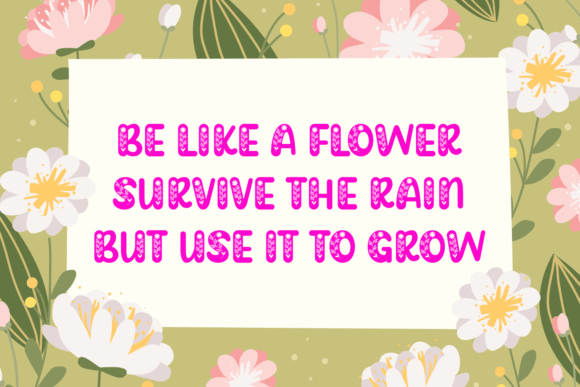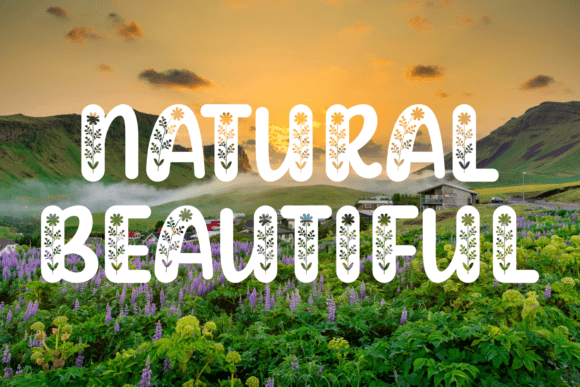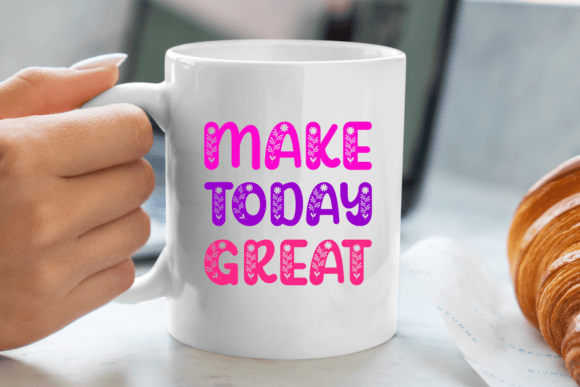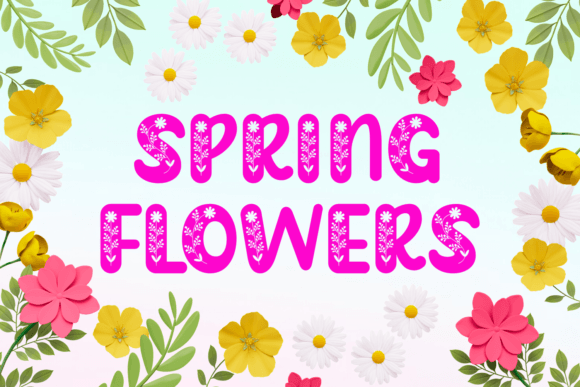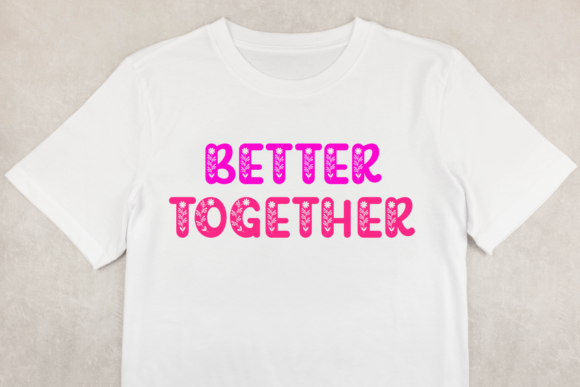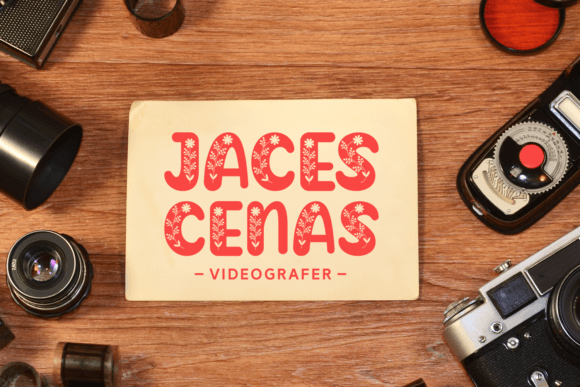
Introducing Flower Charm Font: Elevate Your Designs with Elegance and Beauty
Are you a designer or crafter looking for a unique and captivating font to add a touch of sophistication and femininity to your projects? Look no further than Flower Charm Font, a stunning decorative font that is sure to enchant and delight. In this article, we’ll explore the beauty and versatility of Flower Charm Font, and how it can elevate your designs to new heights.
The Beauty of Flower Charm Font
Flower Charm Font is a meticulously crafted decorative font that features intricate floral details, delicate blooms, petals, and foliage. Each letter is carefully designed to evoke the charm of a blooming garden or a bouquet of flowers, creating a graceful and enchanting typographic style. The font’s floral elements add a touch of sophistication and femininity, making it perfect for a variety of design projects.
Perfect for Feminine-Themed Designs
Flower Charm Font is ideal for designers and crafters who specialize in feminine-themed designs, such as wedding invitations, greeting cards, and branding materials. The font’s elegant and delicate style creates a captivating visual impact that is both enchanting and memorable. Whether you’re designing a wedding invitation or a product label, Flower Charm Font is sure to add a touch of timeless beauty and grace to your project.
Key Features of Flower Charm Font
- Intricate floral details: Each letter features delicate blooms, petals, and foliage, creating a unique and captivating typographic style.
- Elegant and sophisticated: The font’s floral elements add a touch of sophistication and femininity, making it perfect for feminine-themed designs.
- Versatile: Flower Charm Font can be used for a variety of design projects, including wedding invitations, greeting cards, branding materials, and more.
- Timeless beauty: The font’s classic and elegant style ensures that your designs will never go out of style.
Design Ideas with Flower Charm Font
Here are a few design ideas to get you started with Flower Charm Font:
- Wedding invitations: Create beautiful and elegant wedding invitations that set the tone for a romantic and memorable wedding day.
- Greeting cards: Design stunning greeting cards for special occasions, such as birthdays, anniversaries, and holidays.
- Branding materials: Use Flower Charm Font to create a cohesive and sophisticated brand identity for your business or product.
- Product labels: Add a touch of elegance and sophistication to your product labels with Flower Charm Font.
Flower Charm Font is a captivating decorative font that is sure to elevate your designs to new heights. With its intricate floral details, elegant style, and versatility, this font is perfect for designers and crafters who specialize in feminine-themed designs. Whether you’re designing a wedding invitation, greeting card, or branding material, Flower Charm Font is sure to add a touch of timeless beauty and grace to your project. So why wait? Download Flower Charm Font today and start creating stunning designs that will leave a lasting impression.